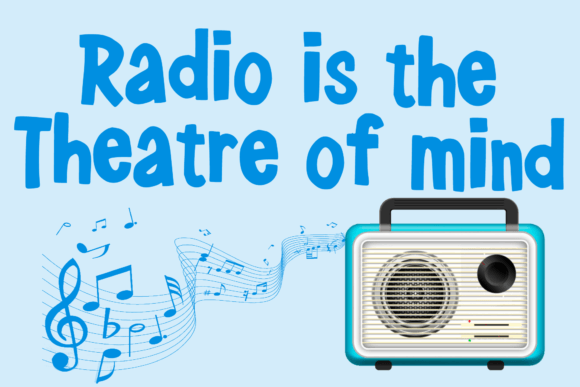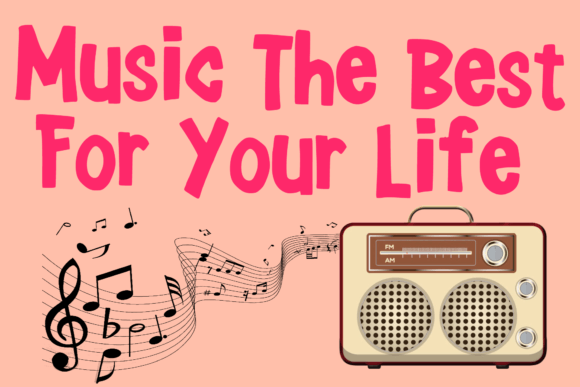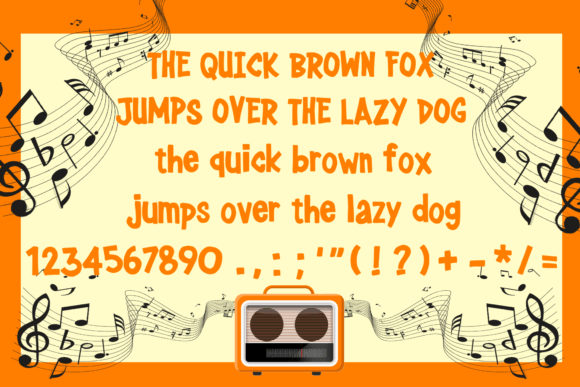
Introduction to Father Radio Font
Father Radio is a playful and fun to use display font.
It will elevate a wide range of design projects to the highest level You can use this font for many design ideas such as stickers, t-shirt designs, amazing logo designs, magazine or book covers, comics, cartoon drawings, and many more.
Father Radio Font offers exceptional quality and versatility, making it a valuable addition to your design toolkit. Whether you’re creating for personal projects or commercial use, Father Radio Font delivers professional results.